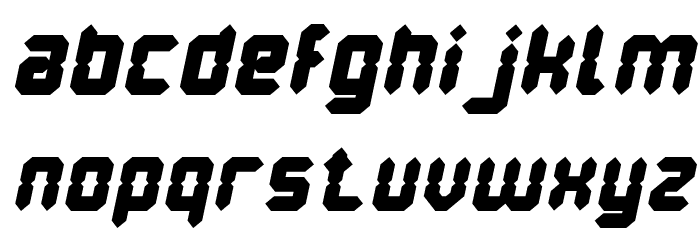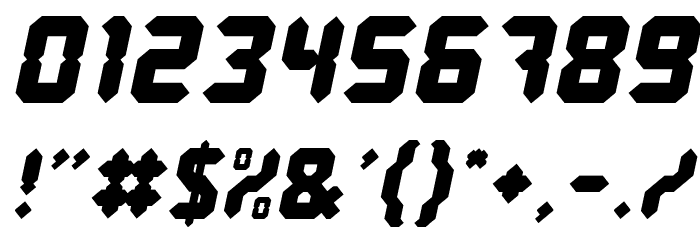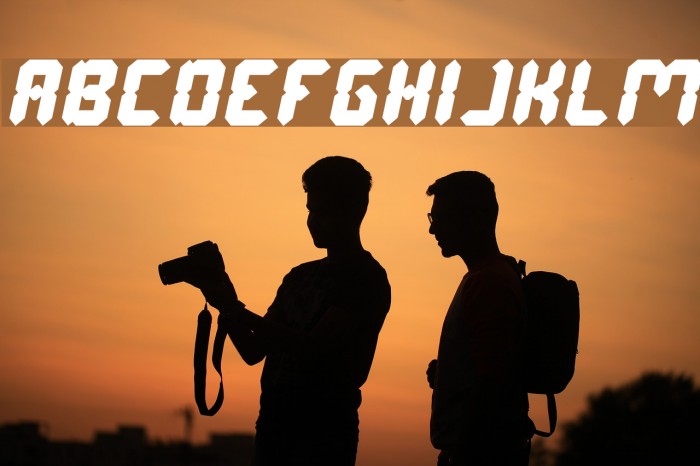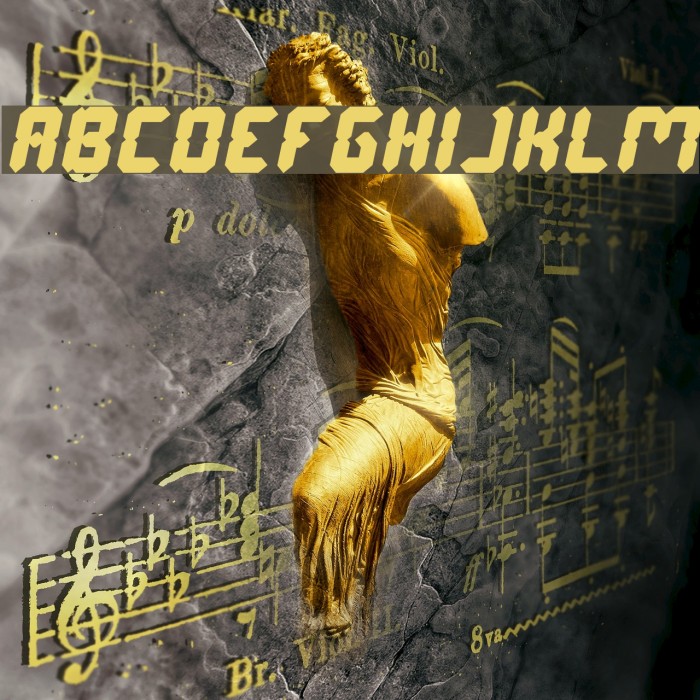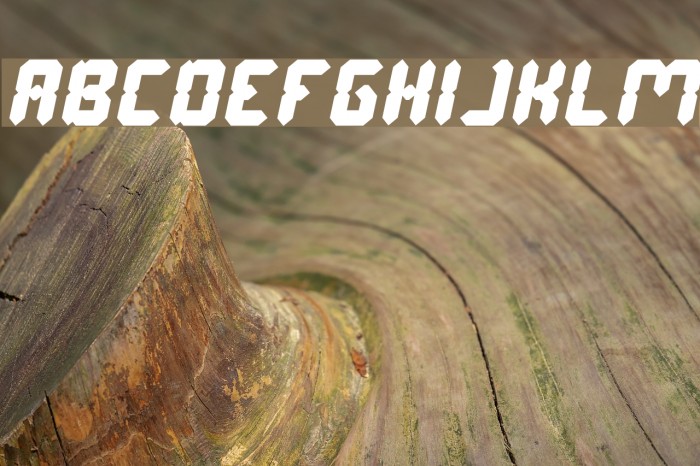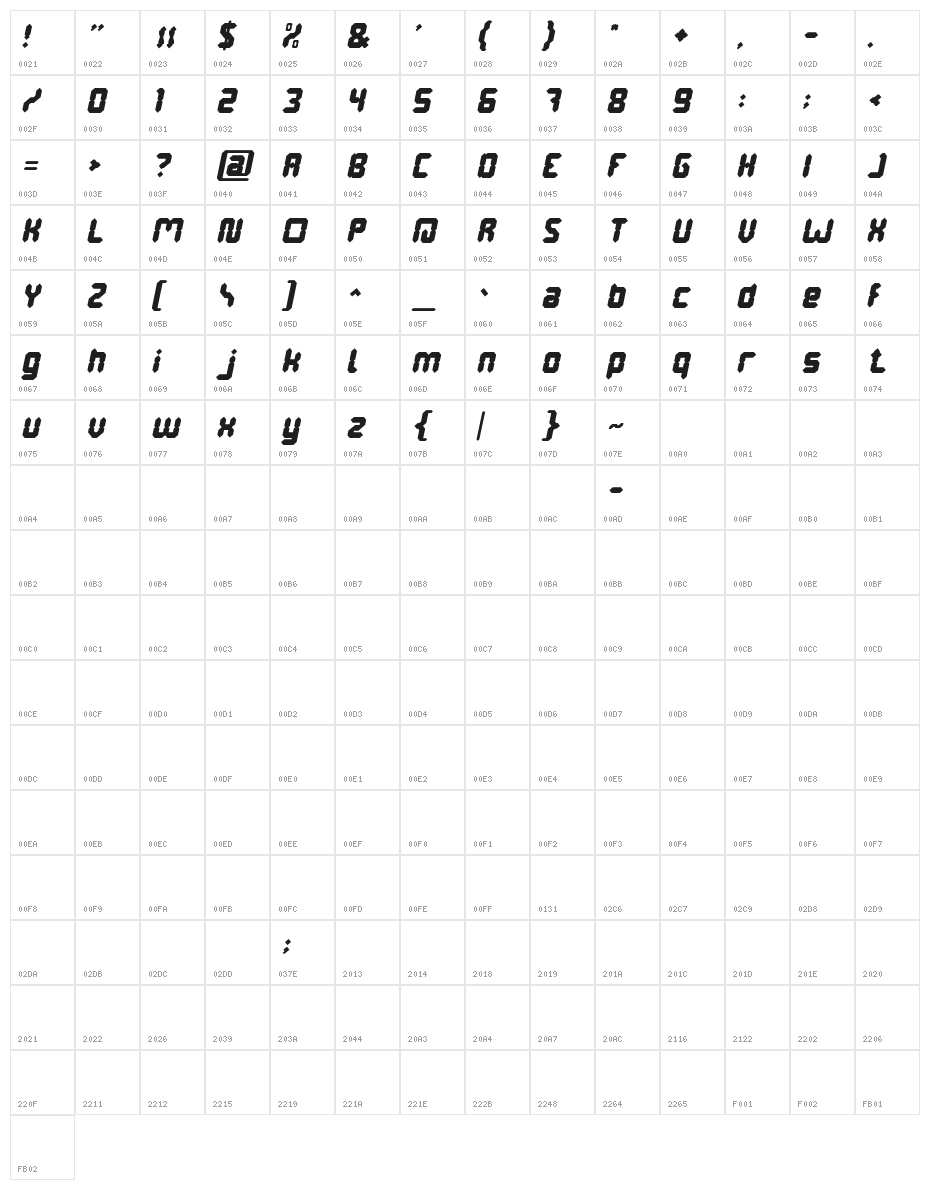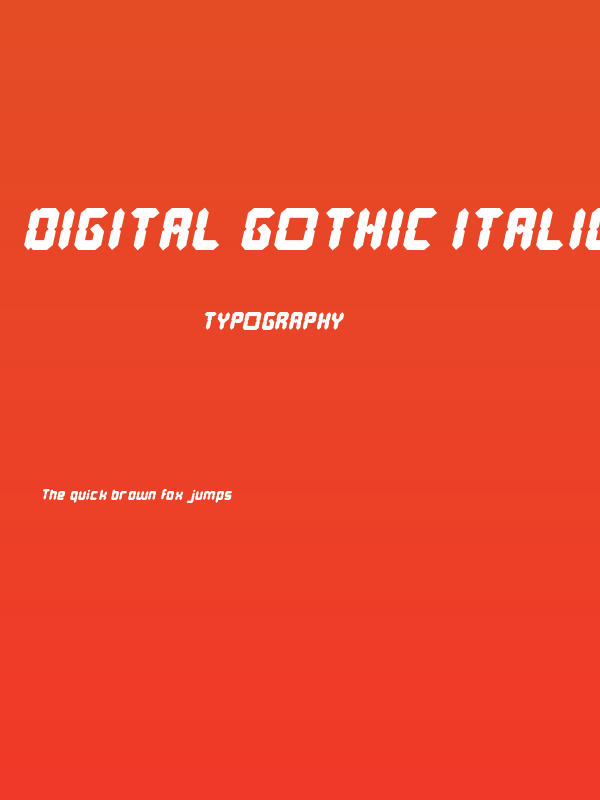
Digital Gothic Italic Font
This font features a bold, angular design with a distinct digital and gothic influence. The characters are italicized, giving them a dynamic and forward-leaning appearance. The sharp edges and geometric shapes create a futuristic and edgy look, reminiscent of digital displays or sci-fi themes. The uppercase and lowercase letters maintain a consistent style, with the numbers and special characters following suit. The overall aesthetic is striking and modern, making it suitable for projects that require a bold statement.
A bold, angular, italicized font with a digital and gothic flair.
- Proposed Projects: Ideal for video game titles, tech branding, sci-fi movie posters, and digital art projects.